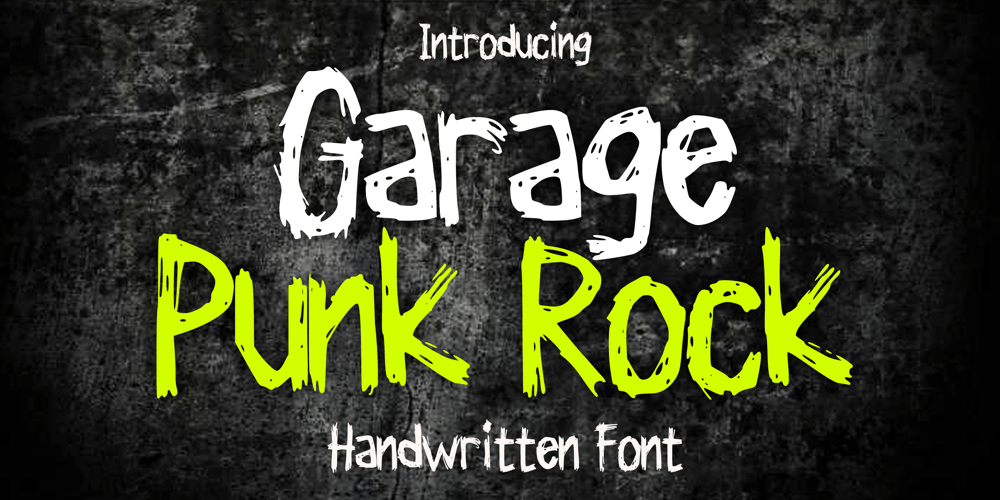
Garage Punk Rock Font Family was designed by Gabriel Valentinus and published by Mvmet. Garage Punk Rock contains 1 styles and family package options. Garage Punk Rock is a cool grunge and rock band display font. Garage Punk Rock is awesome for creating cool design that scream for attention: it’s ideal for movie posters, music posters, single covers, t-shirt designs, sticker, clothing, merchandises, and more. Fall in love with its incredibly cool style, and use it to create lovely designs!